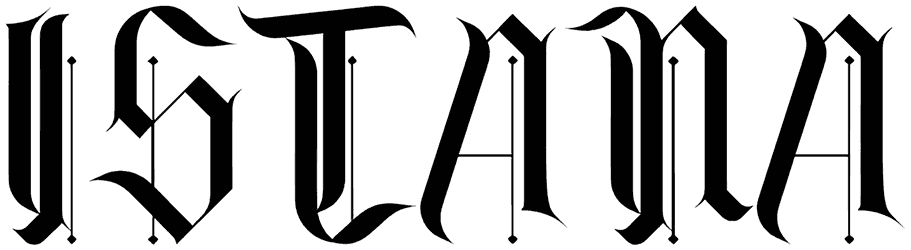
Istana Font
Just once try the unique touch ofArt D eco fonts in your lettering, and you’ll always be on the lookout for more fonts like Istana. It’s the rare combination of elegance and a medieval theme in this innovative manner that doesn’t let you stop admiring this masterpiece.
Some consider Istana a flawless medieval font for religious events, while others see it as more of a business font for branding purposes in the music industry, meditation classes, and other spiritual occasions.